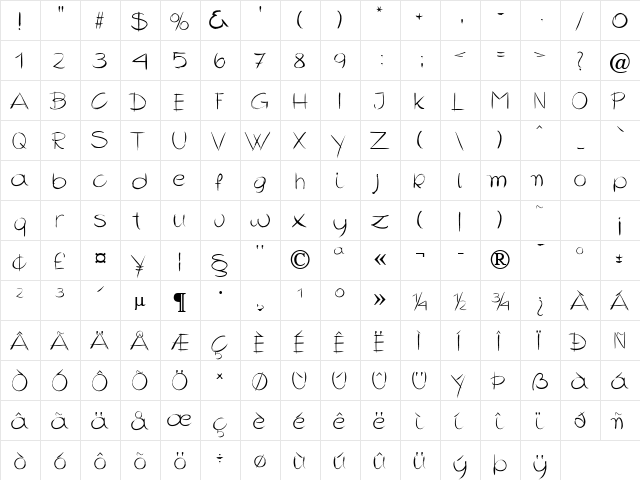
BrushedRound Becker Normal
Design Context for BrushedRound Becker Typeface
BrushedRound Becker brings a calligraphic fluidity to the page — its connecting strokes and expressive curves give it an unmistakably human quality.
Font Pairing: Combine BrushedRound Becker with a simple geometric sans for maximum contrast — the tension between flowing curves and clean structure is a classic typographic pairing.
Pro Tip: Use BrushedRound Becker for short runs of text — names, titles, or taglines. Extended body copy in script faces tires the eye quickly.